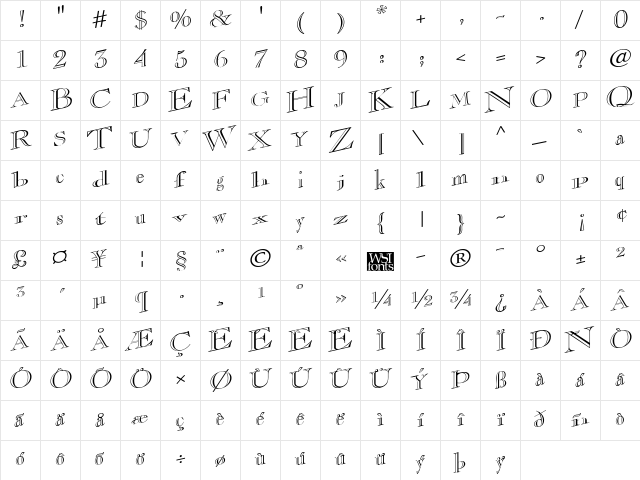
Casque Open Face Wacky Regular
Design Context for Casque Open Face Wacky Typeface
Casque Open Face Wacky is a composed and adaptable typeface that performs quietly and consistently across a wide range of design contexts.
Pro Tip: Use Casque Open Face Wacky in both headline and body roles to test its range before committing to a single application.